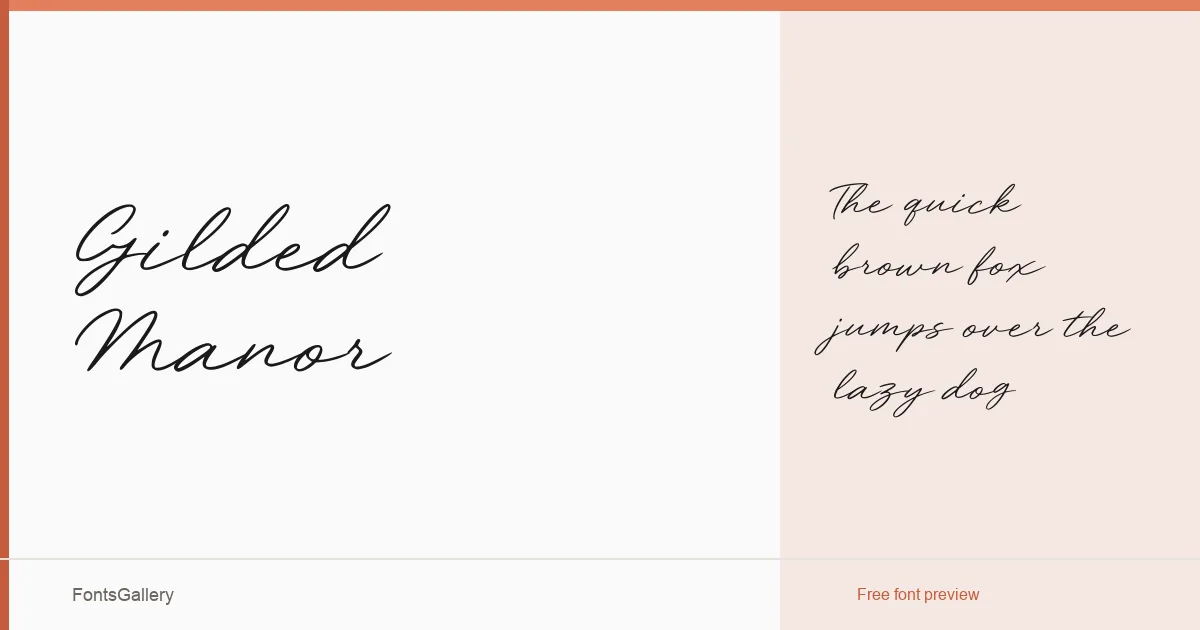
About Gilded Manor Font
Gilded Manor is a script typeface crafted by Majelisart Studio, designed to evoke an air of elegance, luxury, and timeless romance. Its refined character makes it a standout choice for projects that demand sophistication and classic charm. The name itself conjures imagery of opulence and grace, qualities that are reflected throughout its letterforms.
As a script font, Gilded Manor features flowing, expressive strokes that embody a classic and romantic sensibility. Its letterforms carry an elegant rhythm with carefully considered curves and connections that feel both luxurious and refined. The overall aesthetic strikes a balance between ornate grandeur and readable grace, making it well suited to upscale design applications.
Gilded Manor excels in high-end branding, wedding stationery, invitation cards, greeting cards, and certificates where a luxurious and romantic tone is desired. It is equally at home as a logo typeface for brands seeking a classic, distinguished identity. For a harmonious typographic pairing, consider combining Gilded Manor with Aresink for a cohesive elegant look, or with Helvetica for a striking contrast between ornate script and clean modernism.